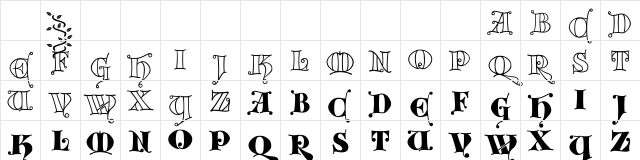
Kingthings Versalis Regular Free Font
Kingthings Versalis Regular
Design Context for Kingthings Versalis
Kingthings Versalis is a composed and adaptable typeface that performs quietly and consistently across a wide range of design contexts. Its slender proportions lend an understated elegance to any composition.